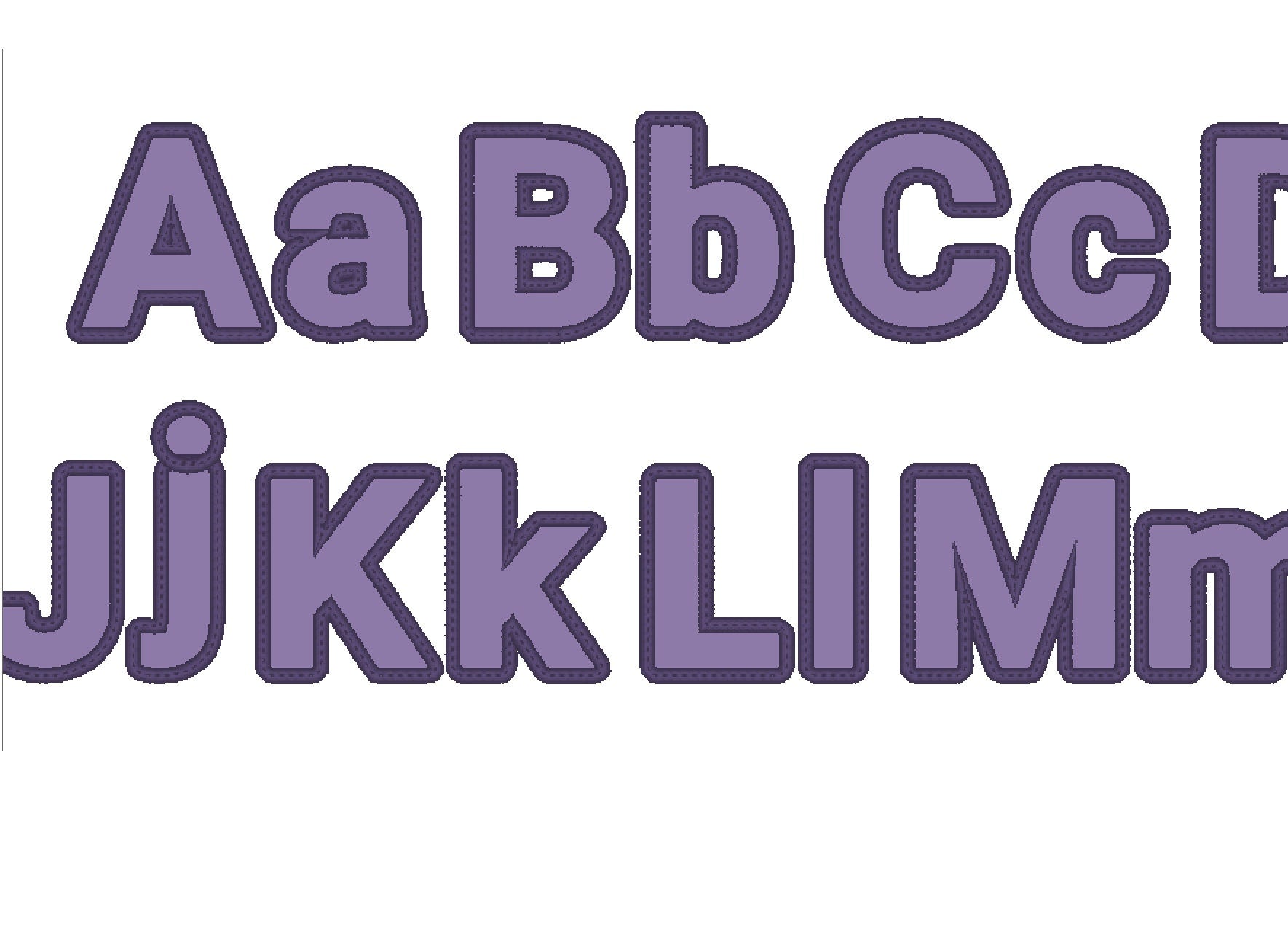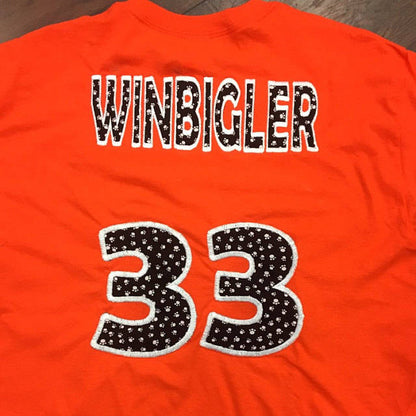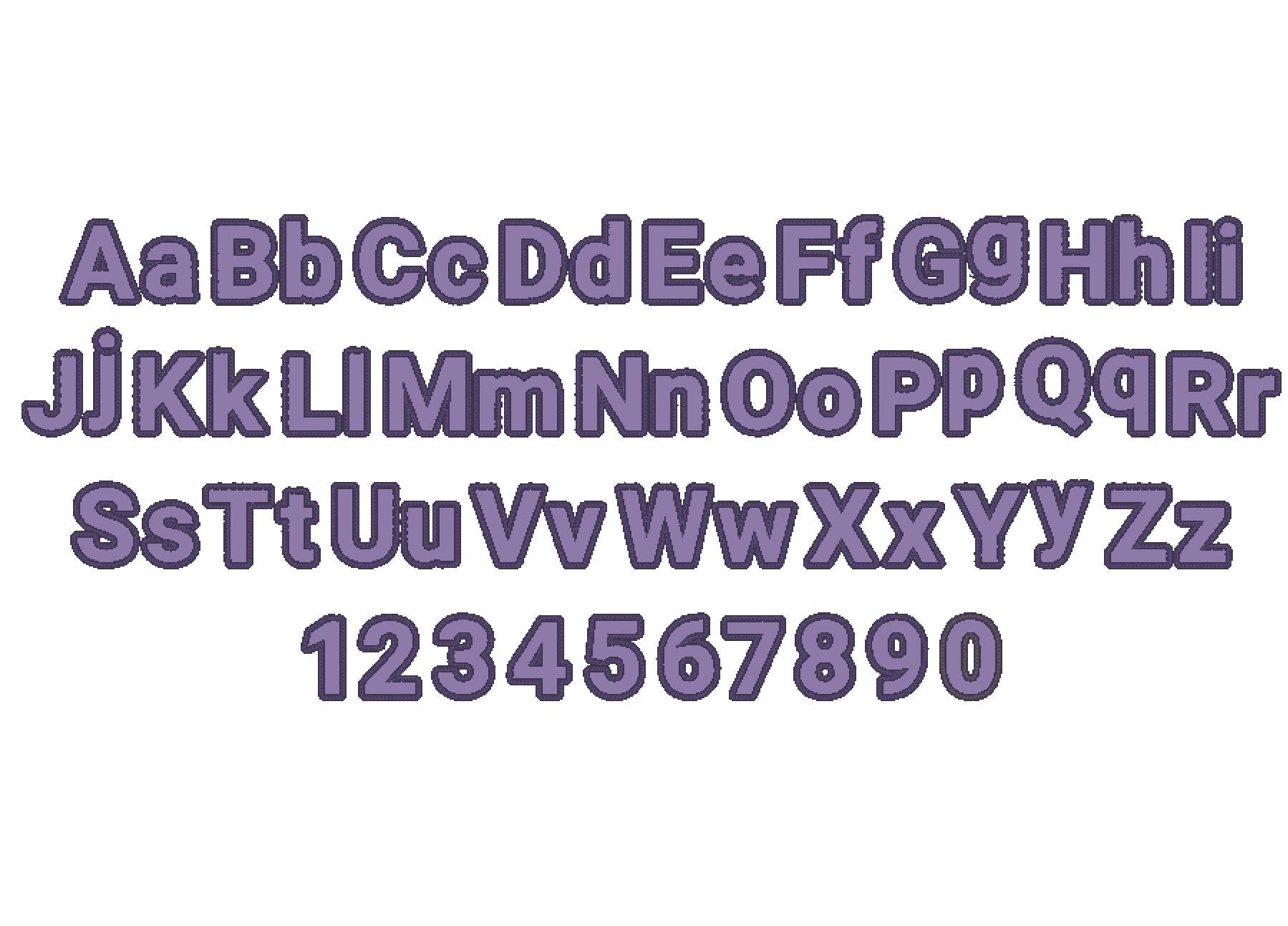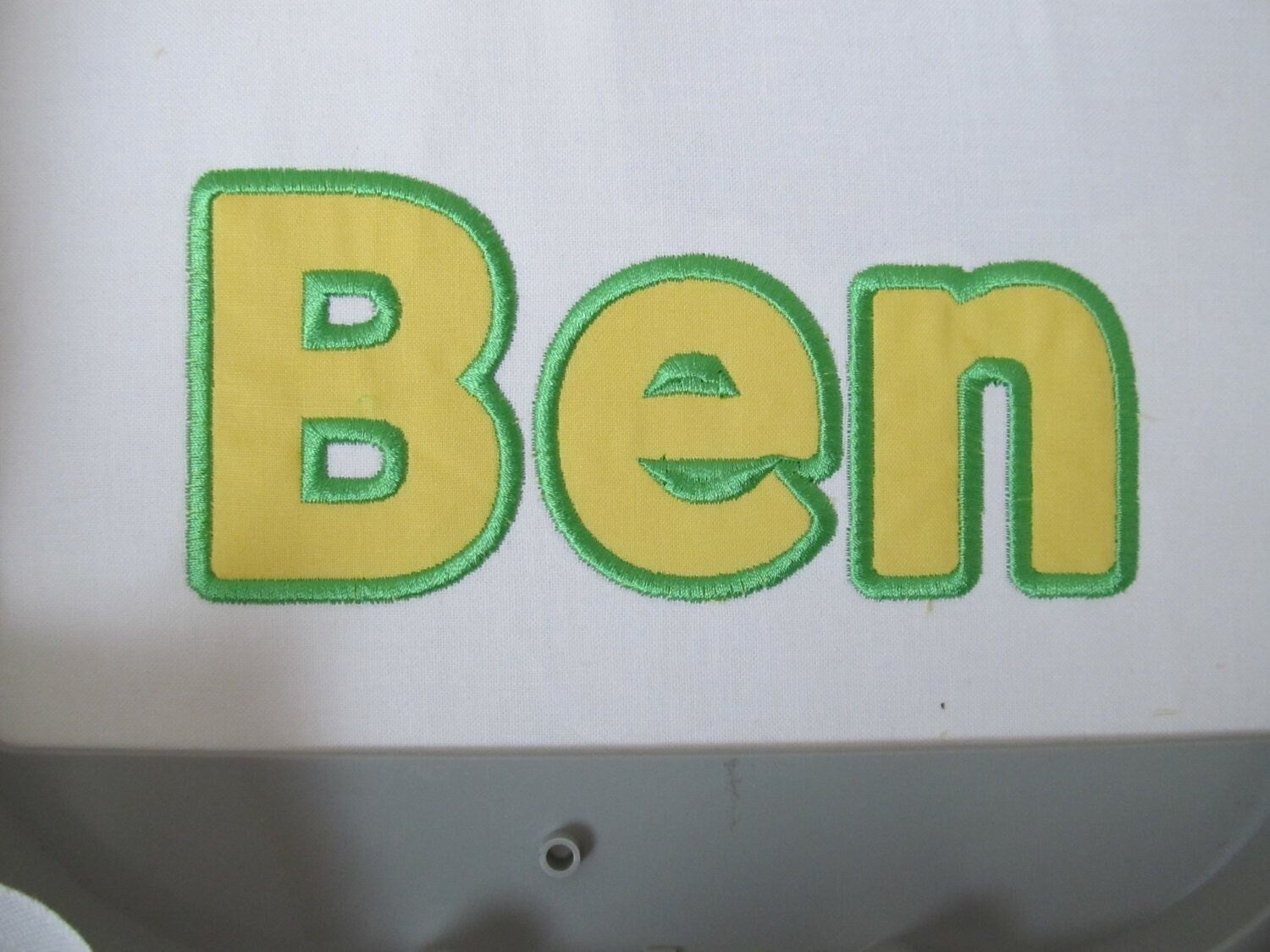
Block Type Font Applique
Included: Uppercase A-Z, Lowercase a-z, Numbers 0-9, Punctuation
A block type applique font for monograms, names, kids' clothes, pillows and bags.
Uppercase and lowercase letters, numbers 0 to 9 and a few punctuation marks, in three sizes: 2, 2.4 and 2.8 inches. Wide satin applique edge with a triple top stitch for a neat look that holds up in the wash; the top stitch can be skipped.
• Block type applique font
• Uppercase, lowercase, numbers 0 to 9
• 3 sizes: 2, 2.4 and 2.8 in